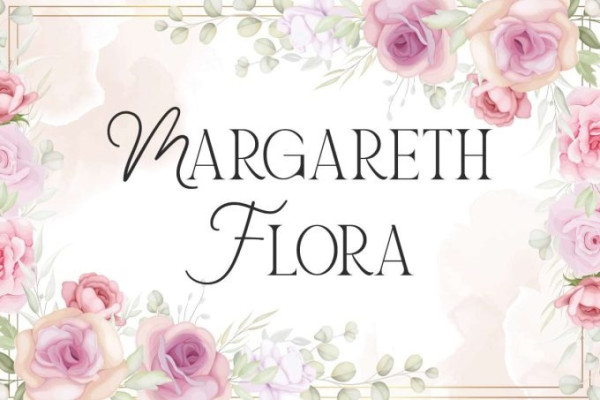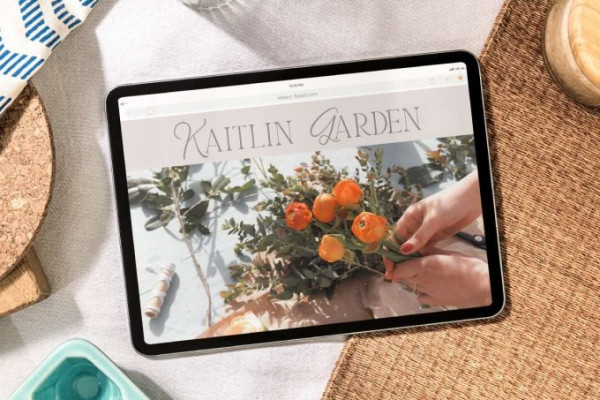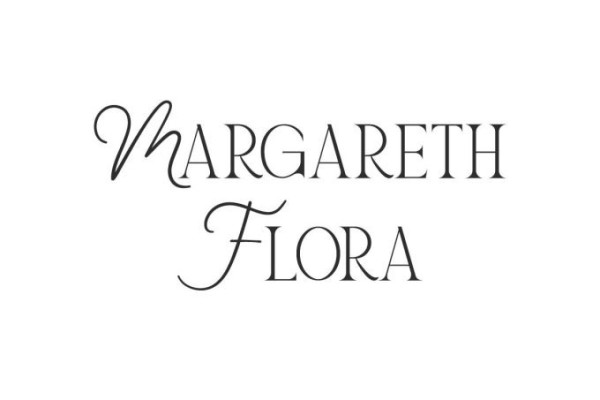
Margareth Flora Font
Margareth Flora Font is a stunning display font that combine two beautiful stylish styles. It will be able to elevate your designs to high level, such as apps, billboard, brand logo, brochure, business card, catalog, cover, embossed design, flyer, header, invitation, label, magazine catalog, mockup design, poster, product design, quote, screen print, signage, social media posts, stationery, sticker, title, website, and any projects.
Margareth Flora Font includes full set of Uppercase and Lowercase Basic Characters with different looks, Number, Punctuation, and Symbol. Brings out a classy modern edge that will elevate your business, such as accessories, architect, botanical, boutique, event organizer, fashion designer, florist, furniture, gardener, handicraft, hotel, lodging, perfume brand, photography, real estate, restaurant, spa salon, wedding, writer, and many more.